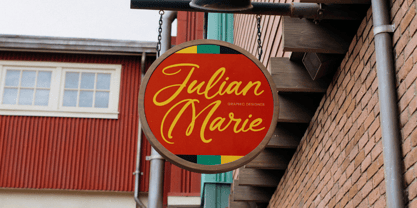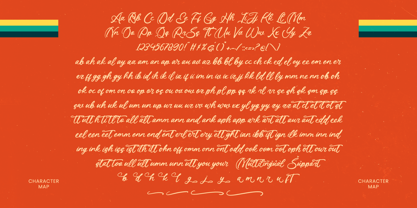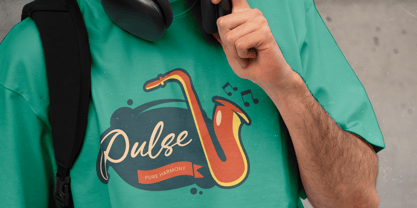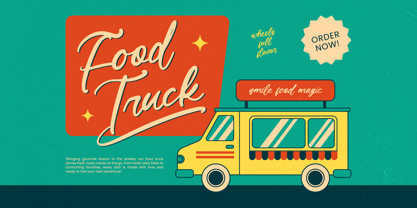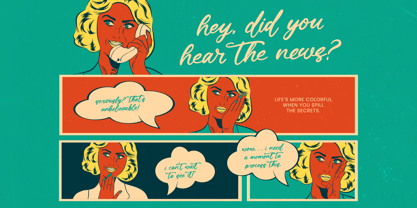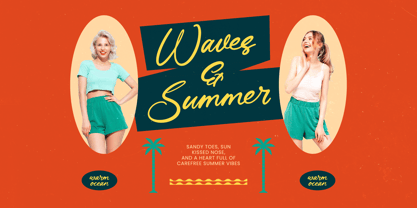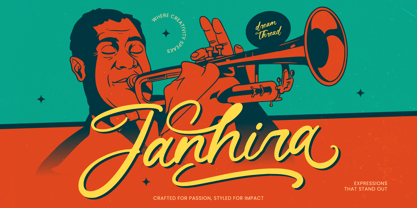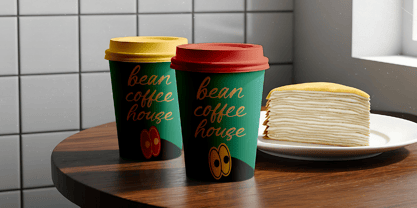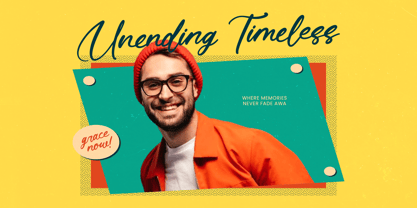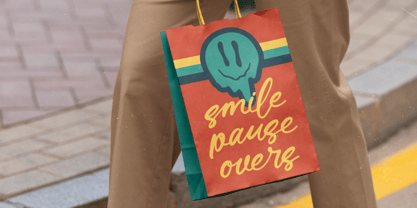
Janhira
The Janhira Font Family was designed by Heru Utama Putra and published by Letterena Studios. Janhira contains 2 styles and family package options. More about this family
Janhira - Aesthetic Handwritten Font
Elevate your creative vision with a typeface that masterfully balances organic flow and sophisticated charm. Janhira - Aesthetic Handwritten Font is a premium calligraphy masterpiece, offering a fluid script that mimics natural handwriting with unparalleled grace. Its dynamic strokes and artistic flourishes provide a human touch that is often lost in digital design, making it a standout choice for professionals seeking authentic expression and distinctive visual appeal.
Transform your brand identity with a versatile tool designed for high-impact visual storytelling and aesthetic excellence. This font is the ideal choice for luxury branding, bespoke packaging, and high-end editorial design. Whether you are crafting elegant wedding invitations, custom logo marks, or influencer social media graphics, Janhira - Aesthetic Handwritten Font adds a layer of timeless elegance and sophisticated personality to every creative composition.